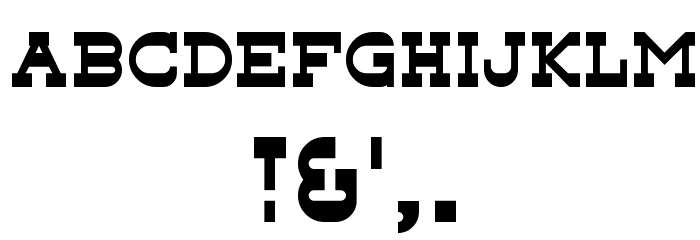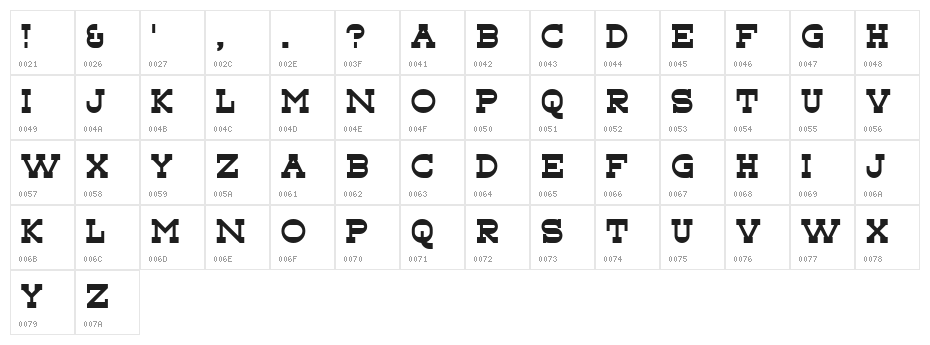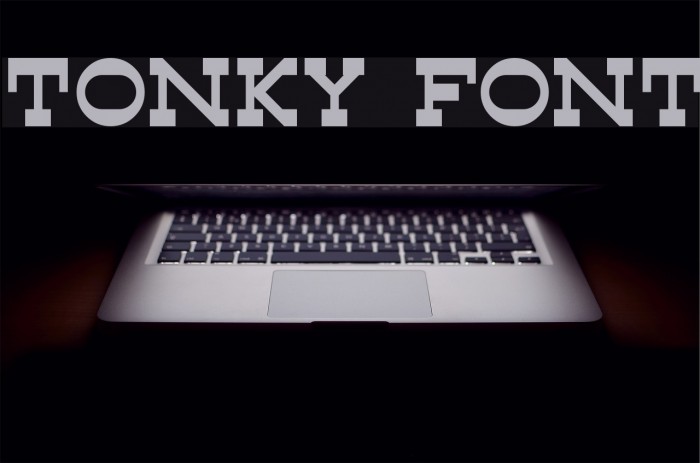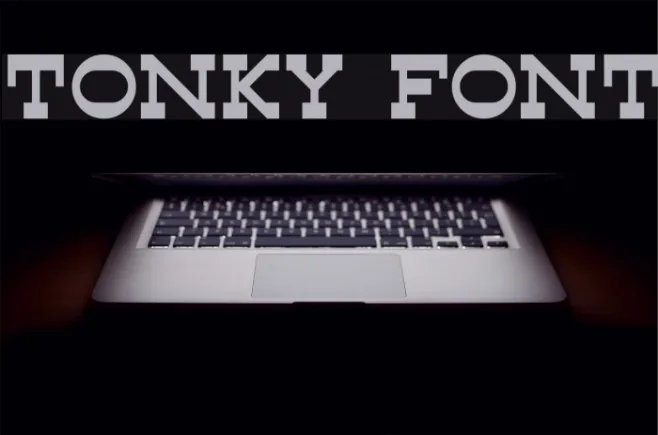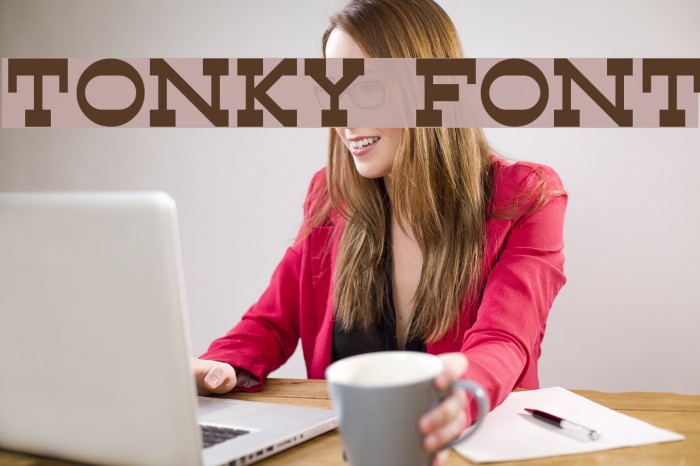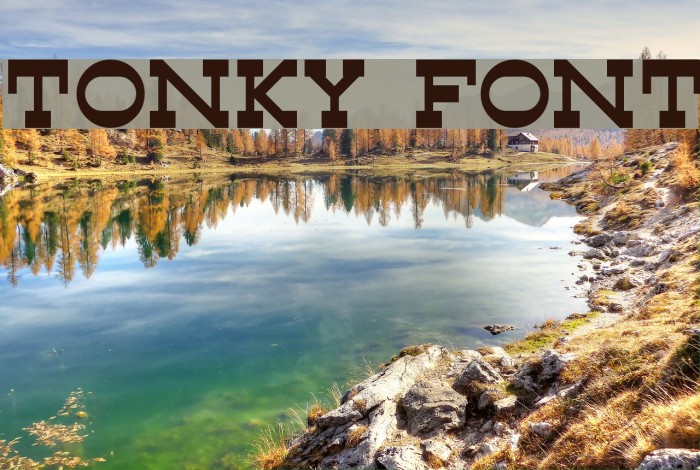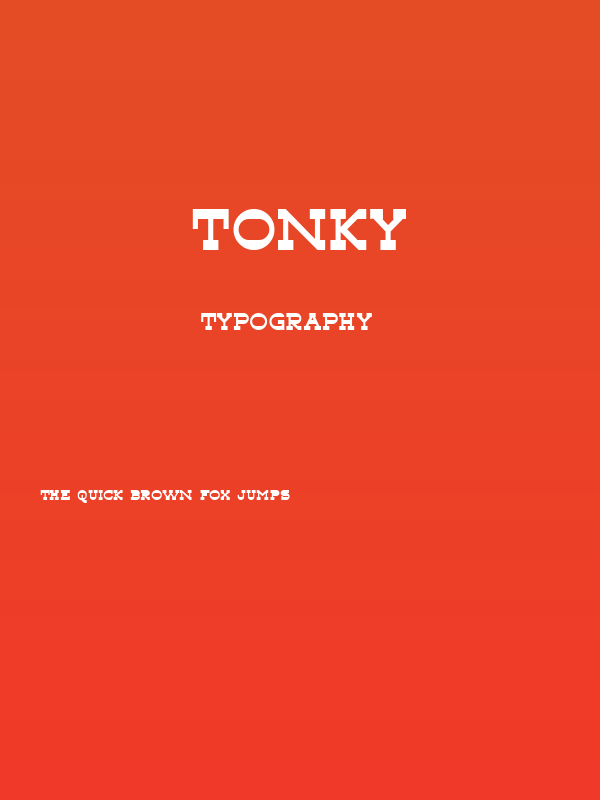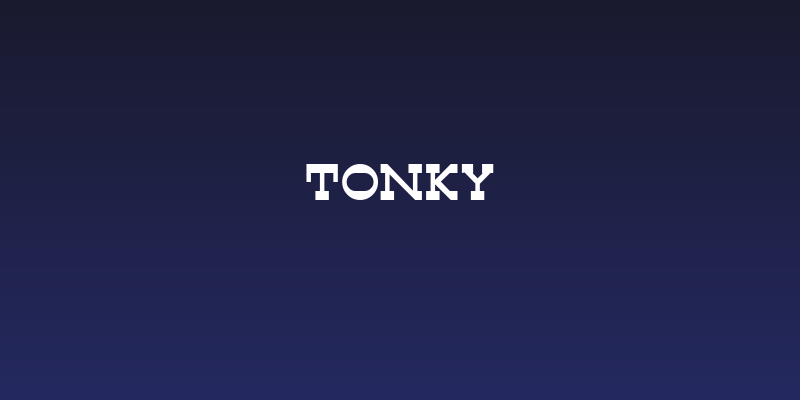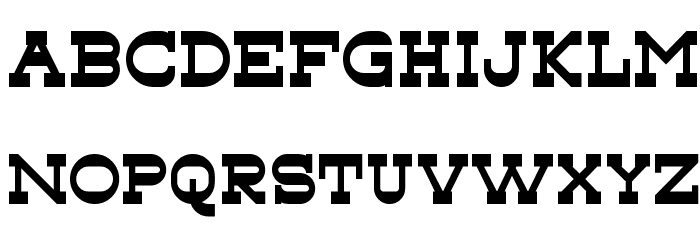
Tonky Font
Tonky Description
This font features a bold, geometric design with strong, block-like serifs that give it a commanding presence. The uppercase letters are uniform in height and width, creating a cohesive and structured appearance. The strokes are thick and consistent, providing a high level of contrast that enhances readability. The overall style is reminiscent of vintage typefaces, yet it maintains a modern edge with its clean lines and sharp angles. The special characters, such as the ampersand and exclamation mark, are designed with the same boldness, ensuring they stand out effectively.
| Overall Style | Vintage, Modern |
| Proposed Projects | Ideal for headlines, posters, branding, and any project requiring a strong, impactful typeface. |